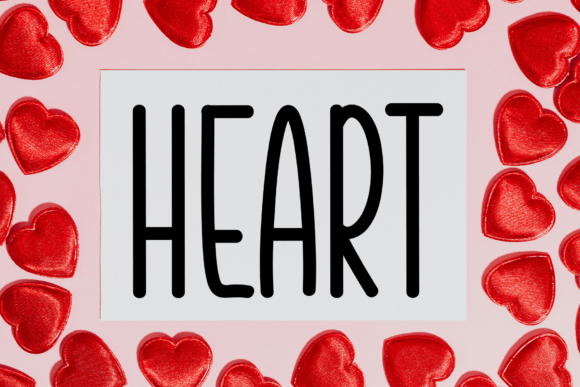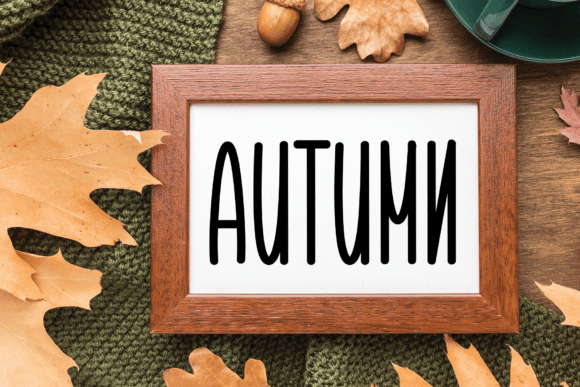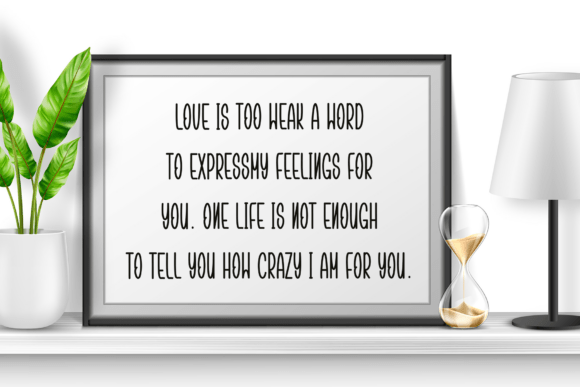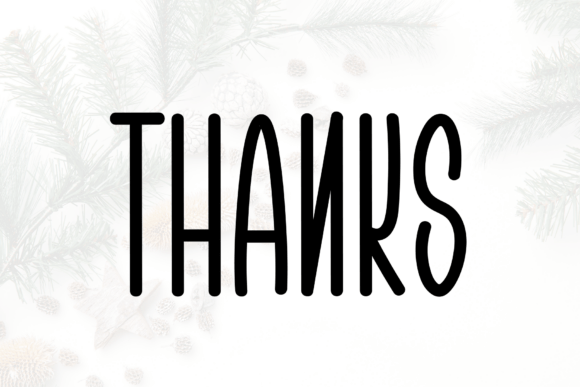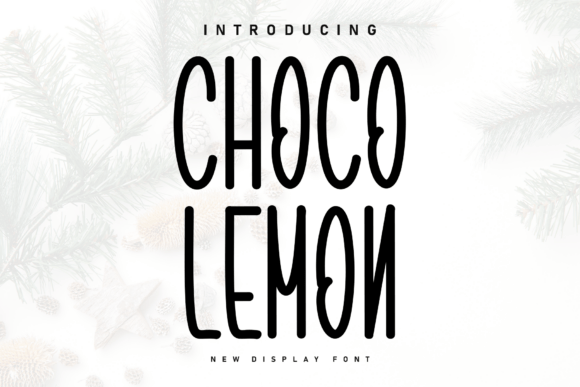
Introducing Choco Lemon Font: The Sweetest Addition to Your Design Projects
Are you a designer or crafter looking for a unique and beautiful font to add a personal touch to your projects? Look no further than Choco Lemon Font! This sweet and beautiful handwritten font is sure to bring a cozy accent to any design project you wish to create. With its charming characters that dance along the baseline, Choco Lemon Font is the perfect addition to your typography collection.
What Makes Choco Lemon Font So Special?
Choco Lemon Font is a one-of-a-kind handwritten font that boasts a range of features that make it stand out from the crowd. Here are just a few reasons why designers and crafters love this font:
- Unique Character Style: The characters in Choco Lemon Font are designed to dance along the baseline, giving your text a playful and whimsical feel.
- Handwritten with Love: This font is carefully crafted to mimic the look and feel of handwritten text, making it perfect for designs that require a personal touch.
- Coziness Overload: Choco Lemon Font is the epitome of coziness, making it perfect for designs that require a warm and inviting feel.
Perfect for a Range of Design Projects
Choco Lemon Font is a versatile font that can be used for a wide range of design projects, including:
- Branding and Packaging: Add a touch of personality to your brand with Choco Lemon Font, perfect for packaging, labels, and business cards.
- Stationery and Invitations: Create beautiful stationery, invitations, and greeting cards with Choco Lemon Font.
- Digital Designs: Use Choco Lemon Font in your digital designs, such as social media graphics, blog posts, and website headers.
- Crafting and Scrapbooking: Add a personal touch to your crafting and scrapbooking projects with Choco Lemon Font.
Tips for Using Choco Lemon Font
Here are a few tips for getting the most out of Choco Lemon Font:
- Pair with Other Fonts: Experiment with pairing Choco Lemon Font with other fonts to create a unique and eye-catching combination.
- Play with Size and Color: Don’t be afraid to experiment with different sizes and colors to add visual interest to your design.
- Use for Headings and Titles: Choco Lemon Font is perfect for headings and titles, adding a touch of personality to your design.
Choco Lemon Font is a sweet and beautiful handwritten font that’s sure to add a cozy accent to any design project. With its unique character style, handwritten feel, and versatility, this font is perfect for designers and crafters looking to add a personal touch to their work. Download Choco Lemon Font today and start creating beautiful designs that are sure to impress!